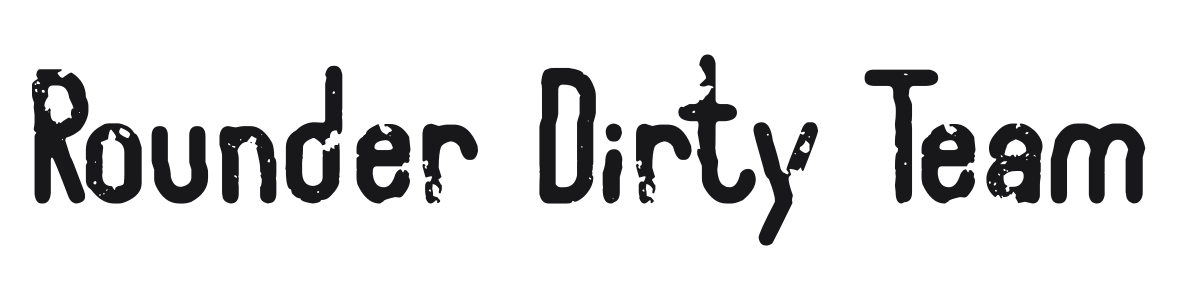
Rounder Dirty Team
Rounder Dirty Team is a heavy rounded sans with heavy distress texture baked into every stroke. The base structure is soft and chunky, while the eroded surface gives it a raw, underground energy. A strong choice for band logos, poster headlines, or anything that needs to feel handmade and rough.